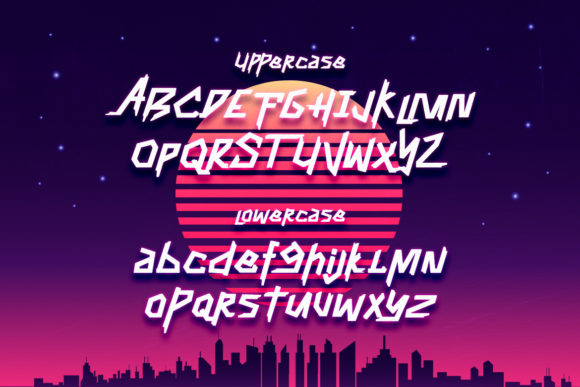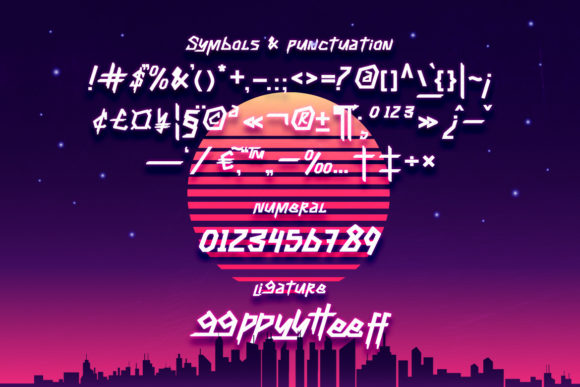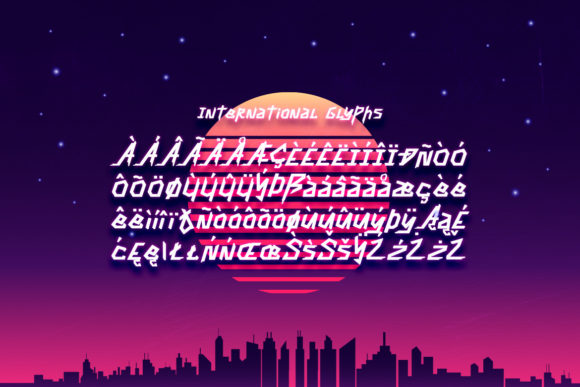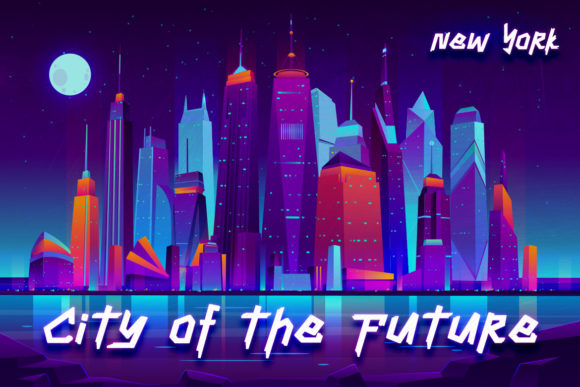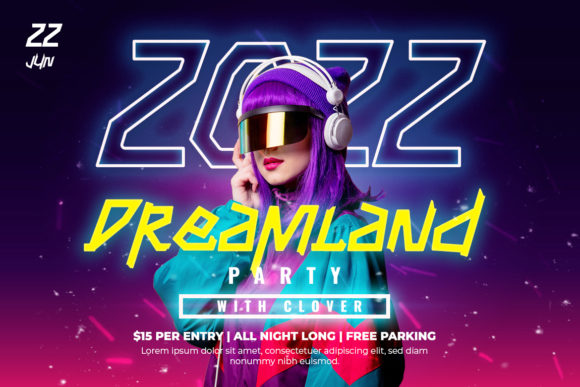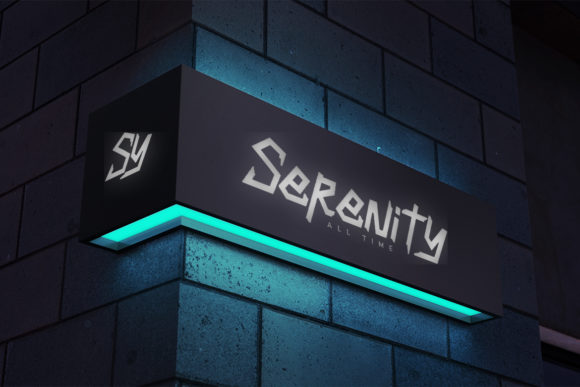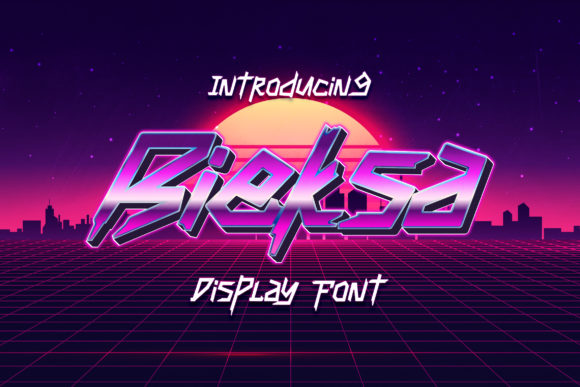
Bieksa Font: The Ultimate Techno and Sharp Display Font for Modern Designers
In the world of typography, fonts play a crucial role in conveying the tone and personality of a brand or design. For designers and crafters looking for a modern and edgy font to elevate their projects, Bieksa Font is an excellent choice. This techno and sharp display font is perfect for creating stunning visuals that grab attention and leave a lasting impression.
What is Bieksa Font?
Bieksa Font is a contemporary display font designed to add a touch of sophistication and modernity to any design project. Its techno and sharp features make it ideal for creating bold and eye-catching visuals that stand out from the crowd. Whether you’re working on branding, product packaging, invitations, quotes, t-shirts, labels, posters, logos, or modern music albums, Bieksa Font is the perfect choice.
Key Features of Bieksa Font
- Techno and Sharp Design: Bieksa Font boasts a sleek and modern design that’s perfect for creating futuristic and edgy visuals.
- High Versatility: This font is suitable for a wide range of design projects, from branding and packaging to invitations and posters.
- Easy to Read: Despite its sharp and techno features, Bieksa Font remains easy to read, making it perfect for body text and headlines.
- Customizable: Bieksa Font can be easily customized to fit your design needs, allowing you to experiment with different colors, sizes, and styles.
Use Cases for Bieksa Font
Bieksa Font is an incredibly versatile font that can be used in a variety of design projects. Here are some use cases to get you started:
- Branding: Create a bold and memorable brand identity with Bieksa Font, perfect for tech startups, fashion brands, and modern businesses.
- Product Packaging: Add a touch of modernity to your product packaging with Bieksa Font, ideal for electronics, cosmetics, and food packaging.
- Invitations: Create stunning invitations for events, weddings, and parties with Bieksa Font’s sleek and modern design.
- T-Shirts and Merchandise: Design eye-catching t-shirts, hoodies, and merchandise with Bieksa Font’s bold and edgy style.
- Posters and Flyers: Create striking posters and flyers with Bieksa Font, perfect for promoting concerts, festivals, and events.
Why Choose Bieksa Font?
With so many fonts available, why choose Bieksa Font? Here are a few reasons why designers and crafters love this font:
- Unique Design: Bieksa Font’s techno and sharp design sets it apart from other fonts, making it perfect for designers looking for something new and exciting.
- High Quality: Bieksa Font is designed with high-quality craftsmanship, ensuring that it looks great in any design project.
- Easy to Use: This font is incredibly easy to use, with a simple and intuitive design that makes it perfect for designers of all levels.
In conclusion, Bieksa Font is an exceptional techno and sharp display font that’s perfect for modern designers and crafters. Its versatility, readability, and customizability make it an excellent choice for a wide range of design projects. Whether you’re working on branding, product packaging, or invitations, Bieksa Font is sure to elevate your designs and leave a lasting impression.